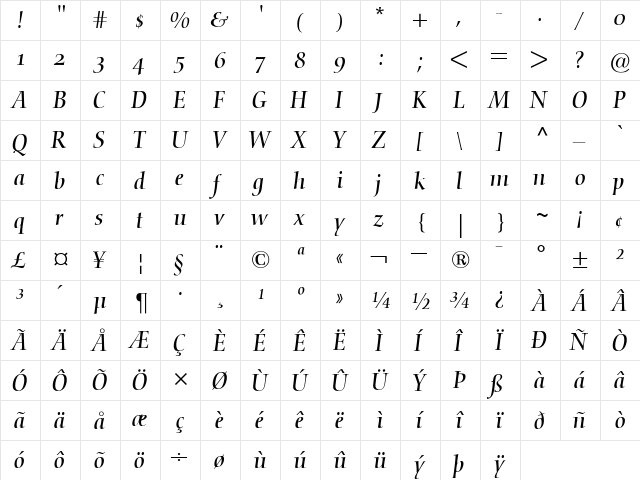
NofretOldstyleFigures RomanItalic Font Preview
NofretOldstyleFigures RomanItalic
Design Context for NofretOldstyleFigures Typeface
NofretOldstyleFigures carries the refined structure of traditional serif typography, with bracketed terminals and considered proportions that communicate credibility and craft. The dynamic lean of this cut emphasises speed and emphasis in any layout.